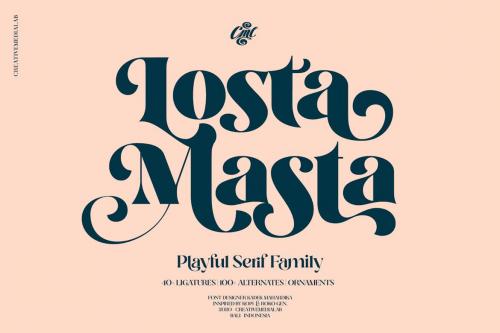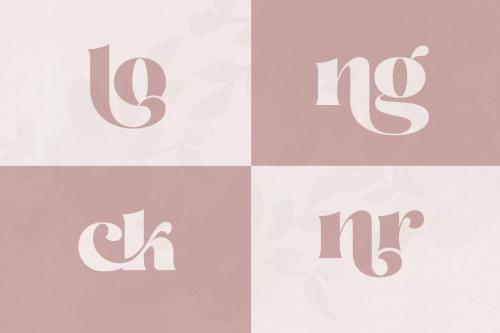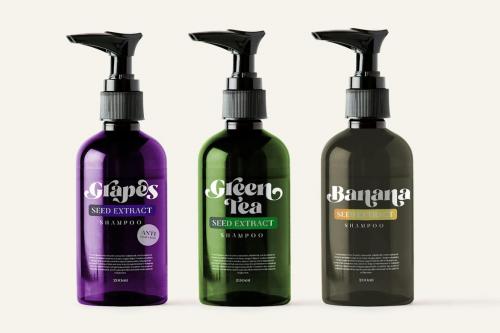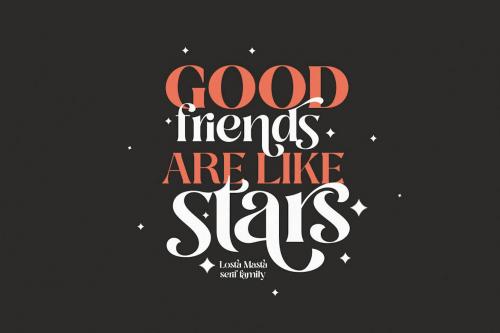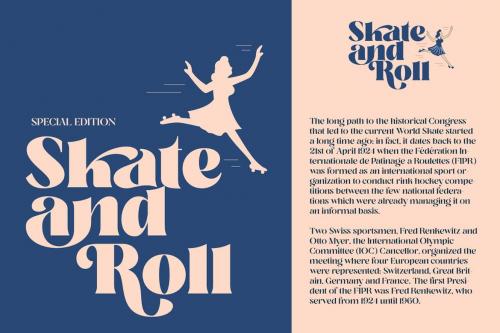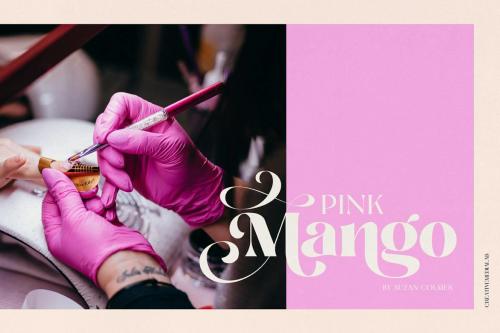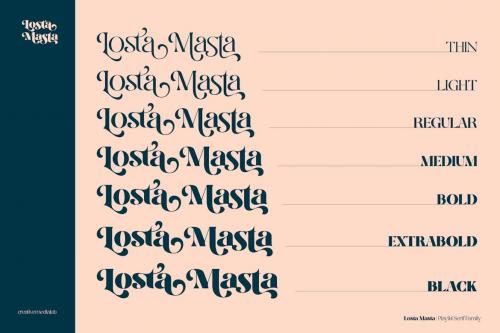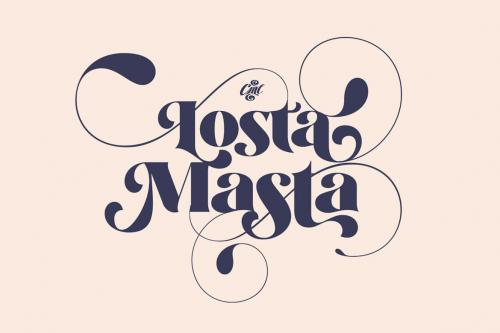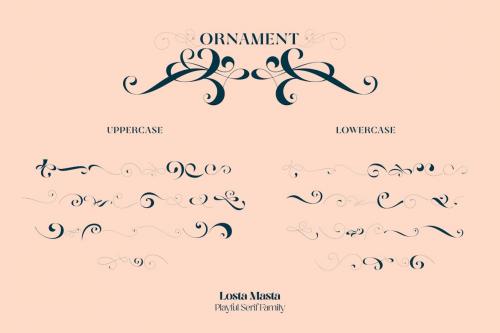
龙스타Font - 现代复古衬线家族
Losta Masta Font - Groovy Retro Serif Family
**Losta Masta - fun and playful serif family.*** Unique, playful and versatile serif family with 40+ ligatures and 100+ alternates that you can combine to get curves and beautiful shapes just in seconds. Play with the ornaments to create a more stunning display. This font is suitable for use in many design forms, for example magazines, postcards, logos, vintage look, old classic ,60s, 70s, 80s era, wedding projects and many more. We recommend using Adobe Illustrator or Photoshop.
***Losta Masta - fun and playful serif family.***
Unique, playful and versatile serif family with 40+ ligatures and 100+ alternates that you can combine to get curves and beautiful shapes just in seconds. Play with the ornaments to create a more stunning display.
This font is suitable for use in many design forms, for example magazines, postcards, logos, vintage look, old classic ,60s, 70s, 80s era, wedding projects and many more. We recommend using Adobe Illustrator or Photoshop.